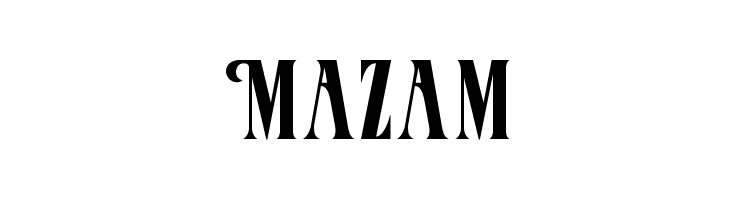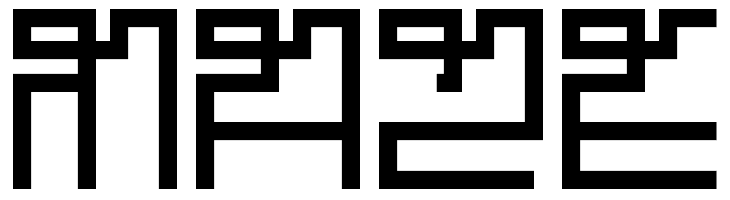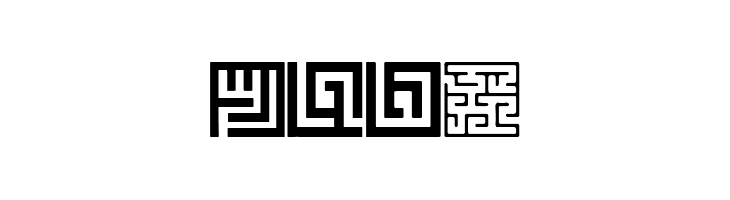
( Fonts by Maelle.K - Thomas Boucherie )
Cartoonish, character-based decorative font with a playful, cute aesthetic.
( Vlad Viperov )
A playful, blob-like font with a whimsical and organic style.
( Vlad Viperov )
A playful, bubble-like font with rounded edges and consistent thickness.
( Vlad Viperov )
A playful, bubble-like font with rounded edges and a whimsical style.
( گالری فانت فارسی پژوهش آريانا - only compatible with Farsi and Arabic )
A modern, decorative font with italicized, enclosed characters and high contrast.
( mazagus - Agus ampuh Wibowo )
A bold, angular font with a geometric and edgy design.
( Harris Type - www.harristype.com/ )
A bold, high-contrast decorative font with dramatic serifs and curves.